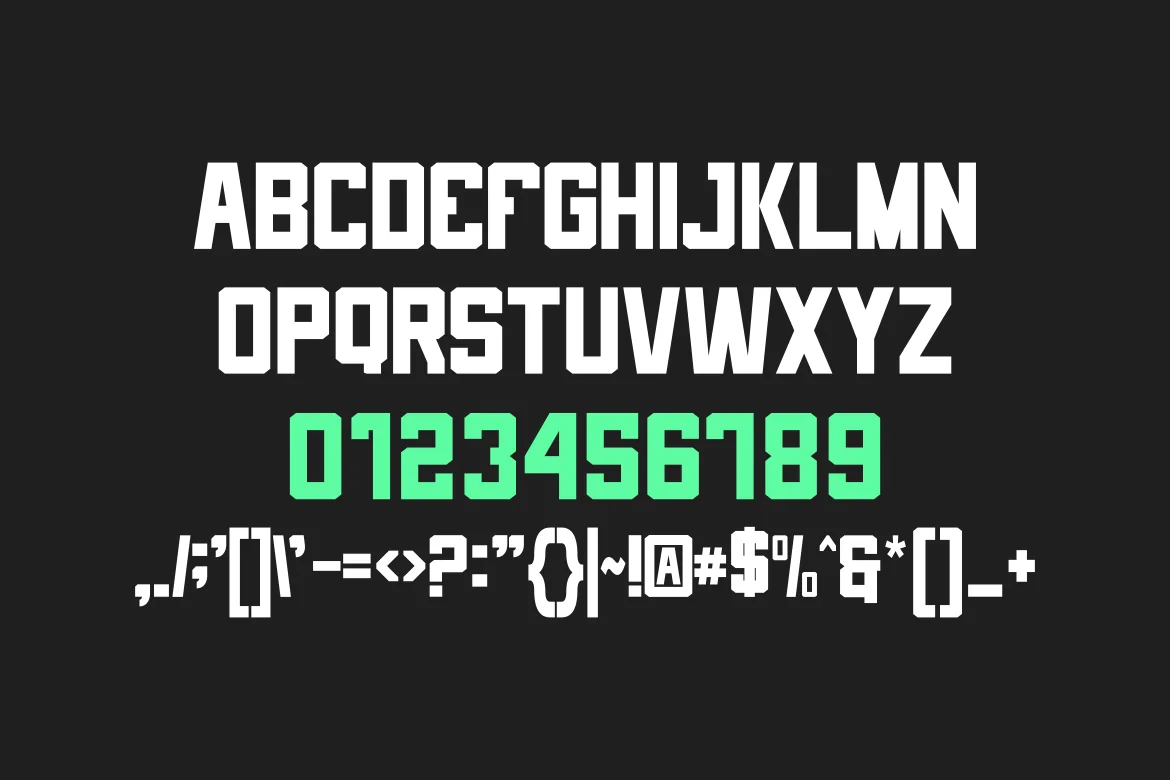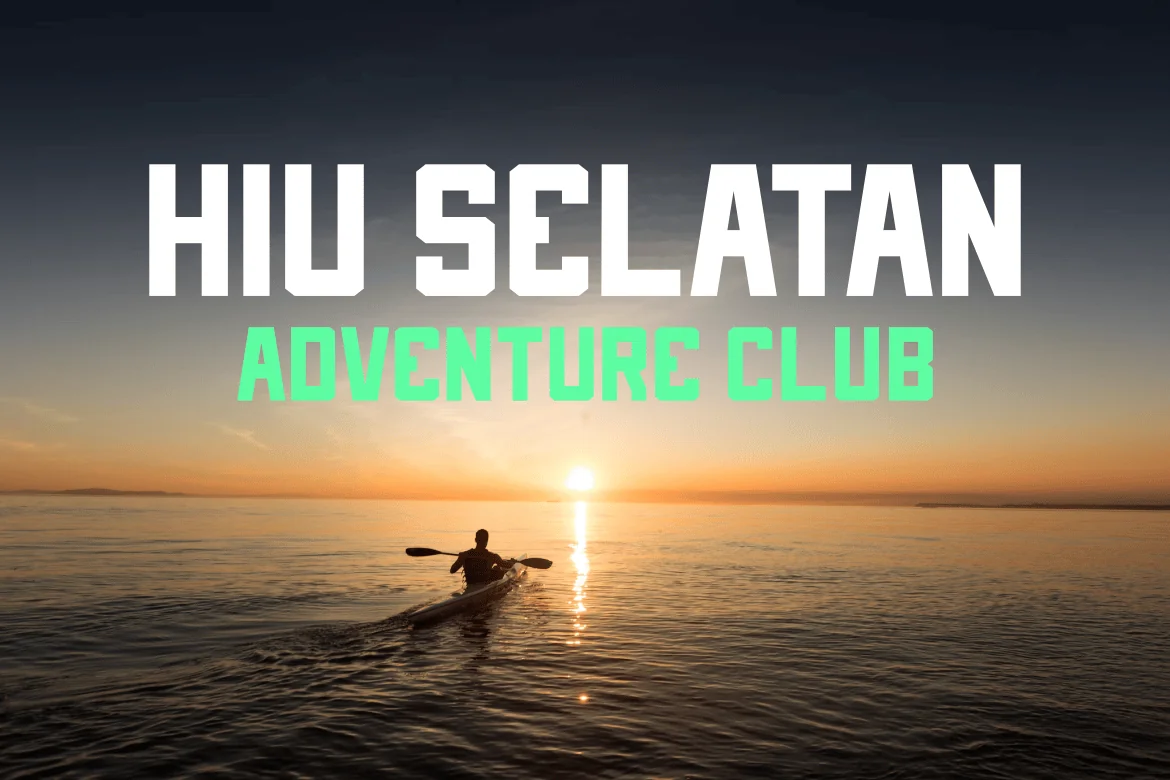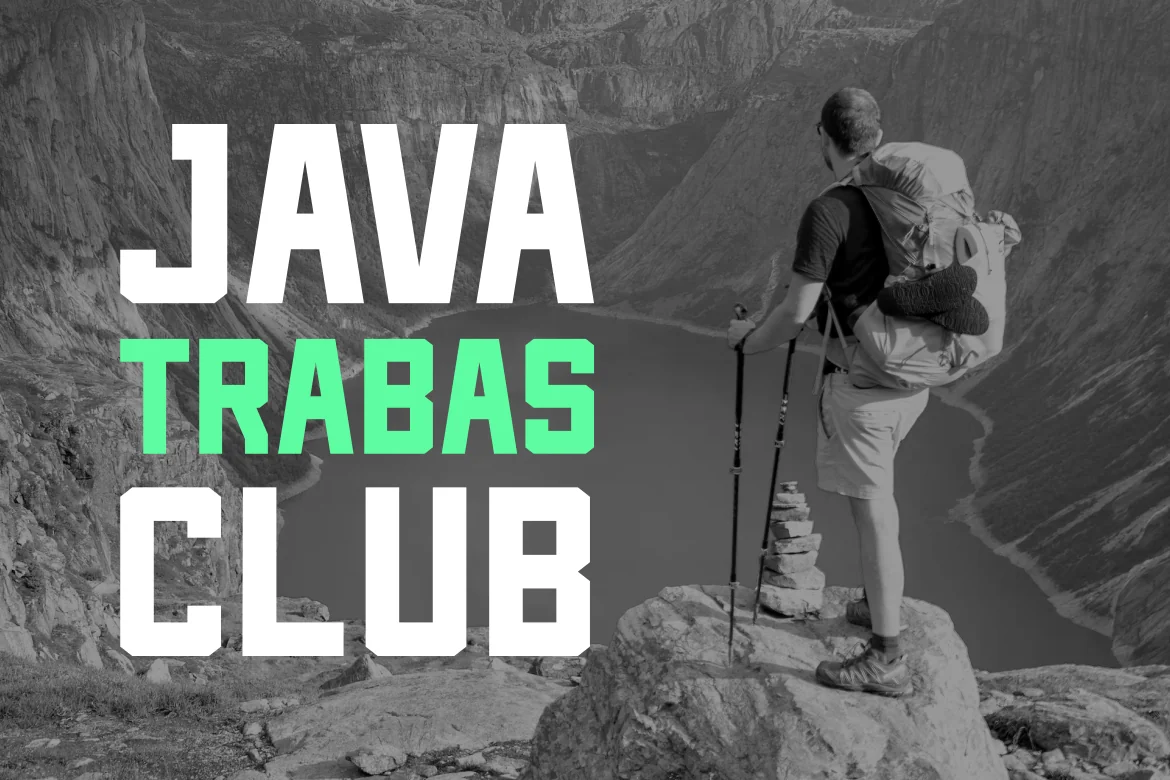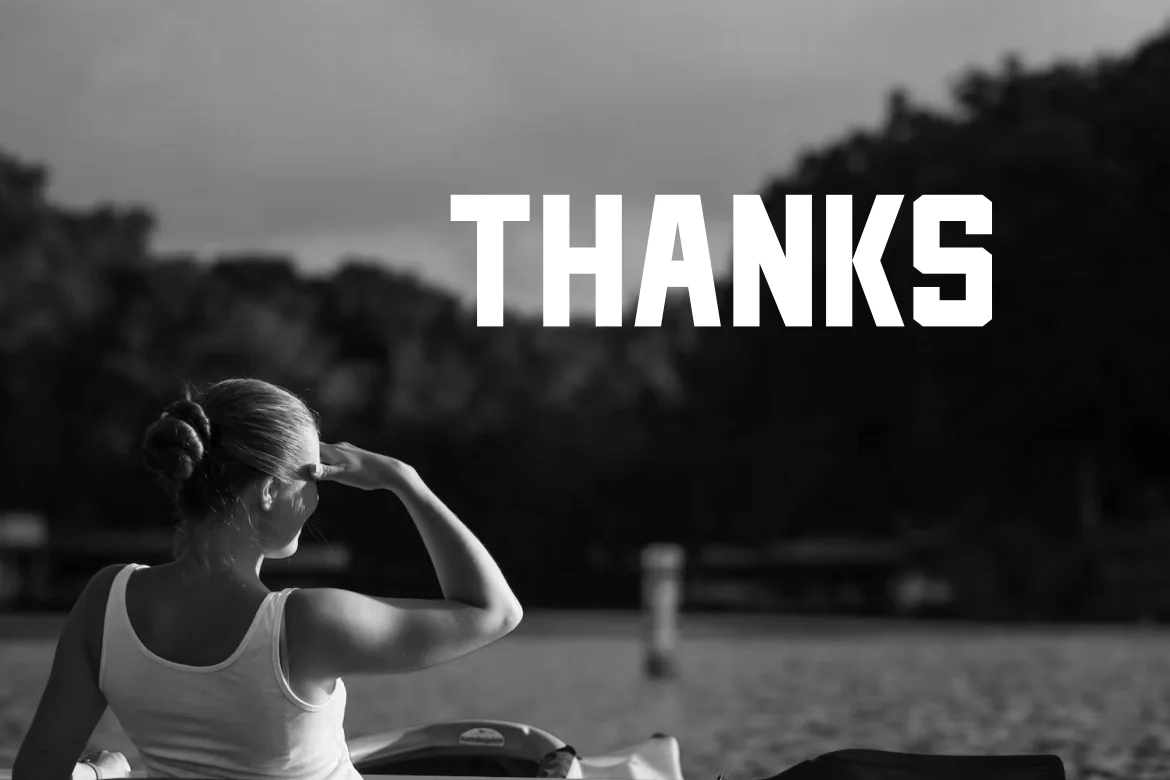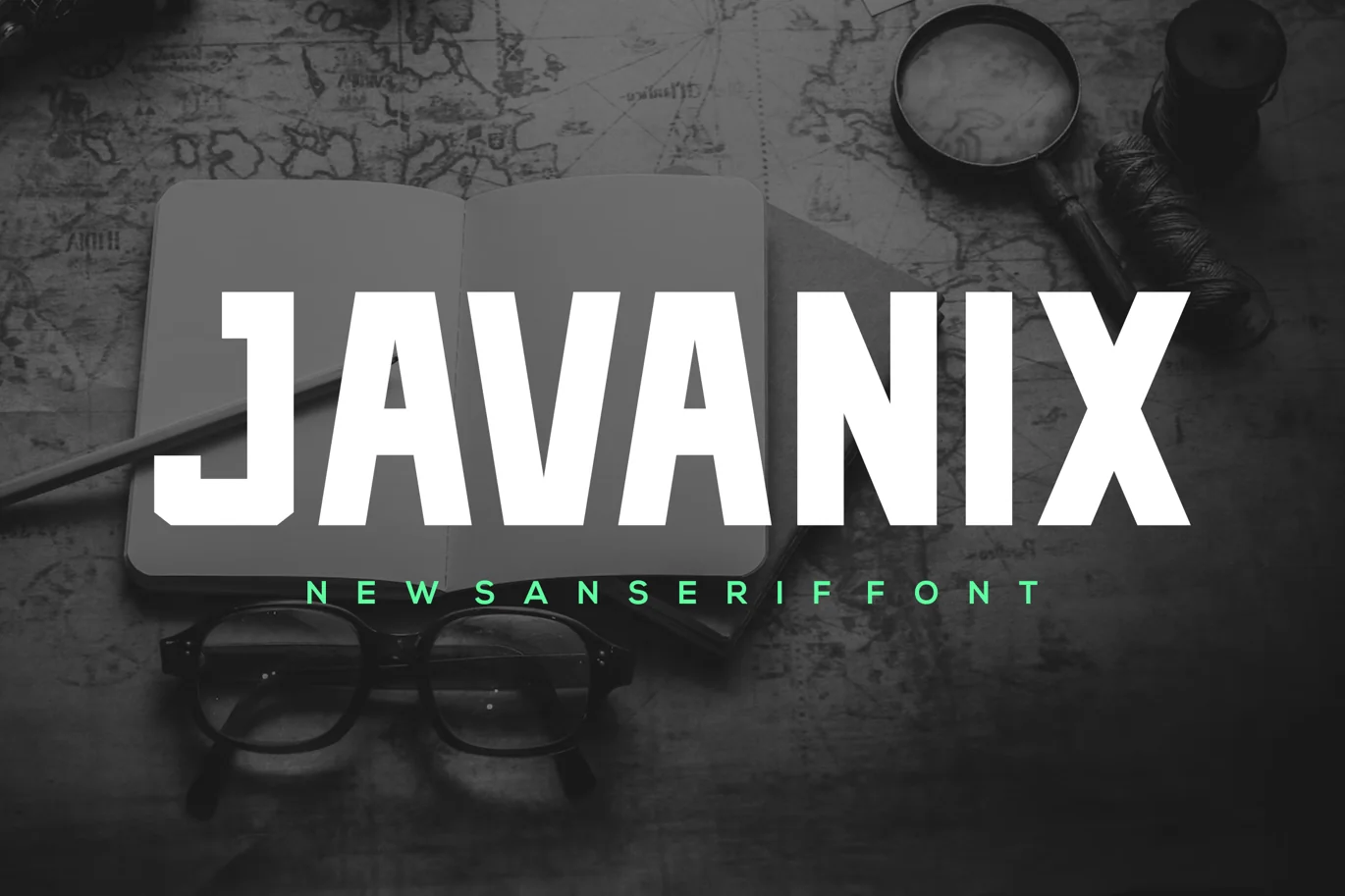
Javanix – Modern Sport Font
Introducing our new product Javanix – Modern Sport Font Modern Font
Javanix – Modern Sport Font – Modern Font is a bold and authentic display font. The font is suitable for any branding project like logo, t-shirt printing, esport, and many more. outstanding in a wide range of contexts.